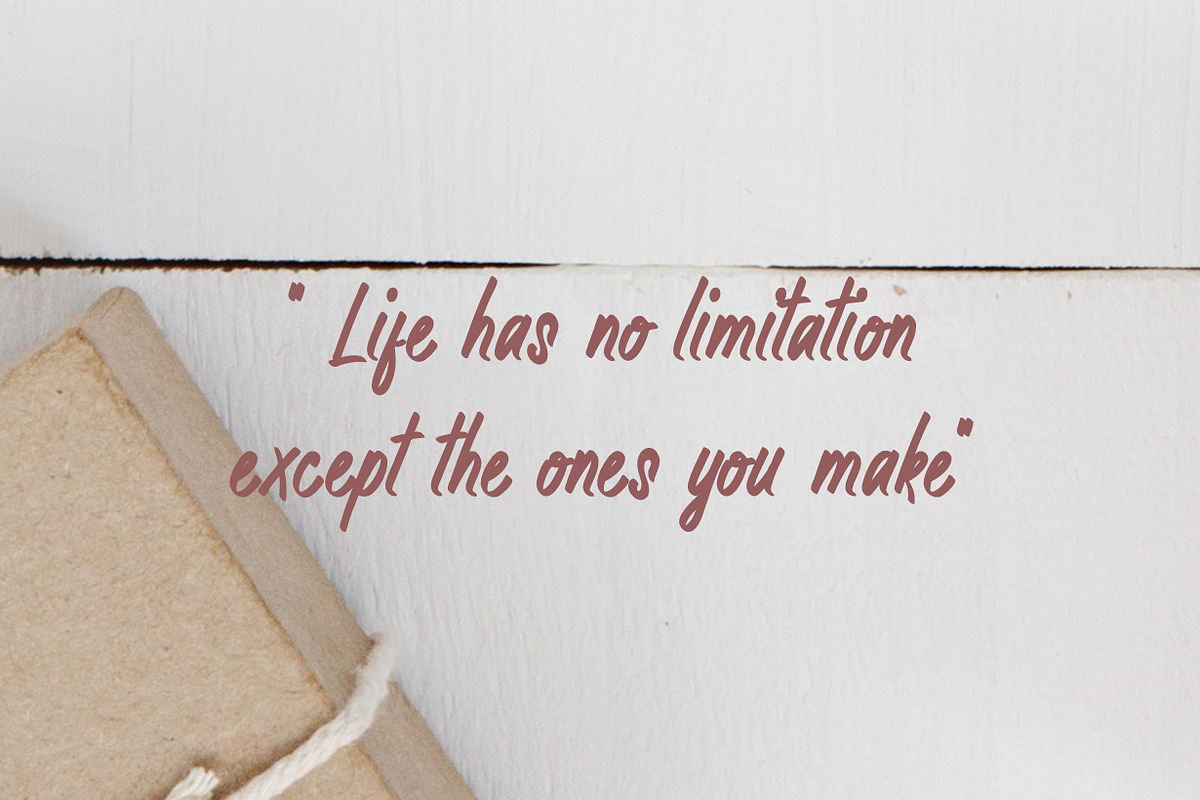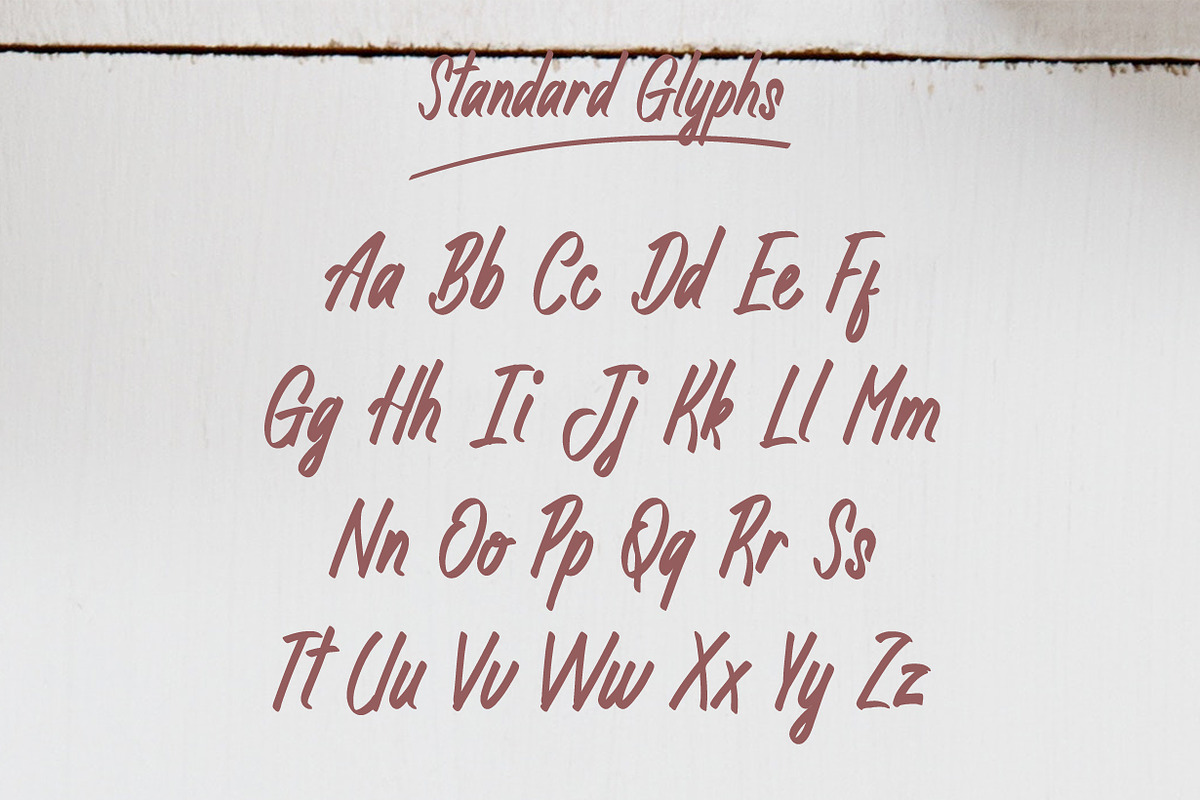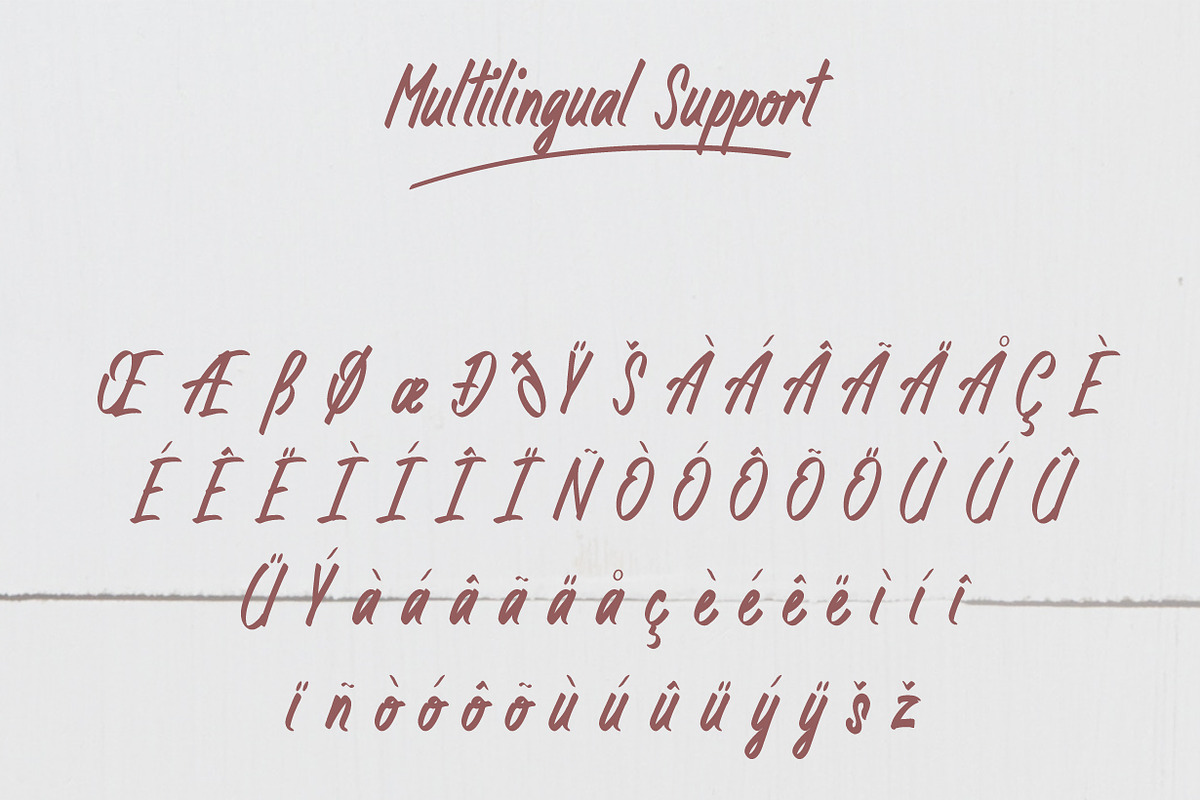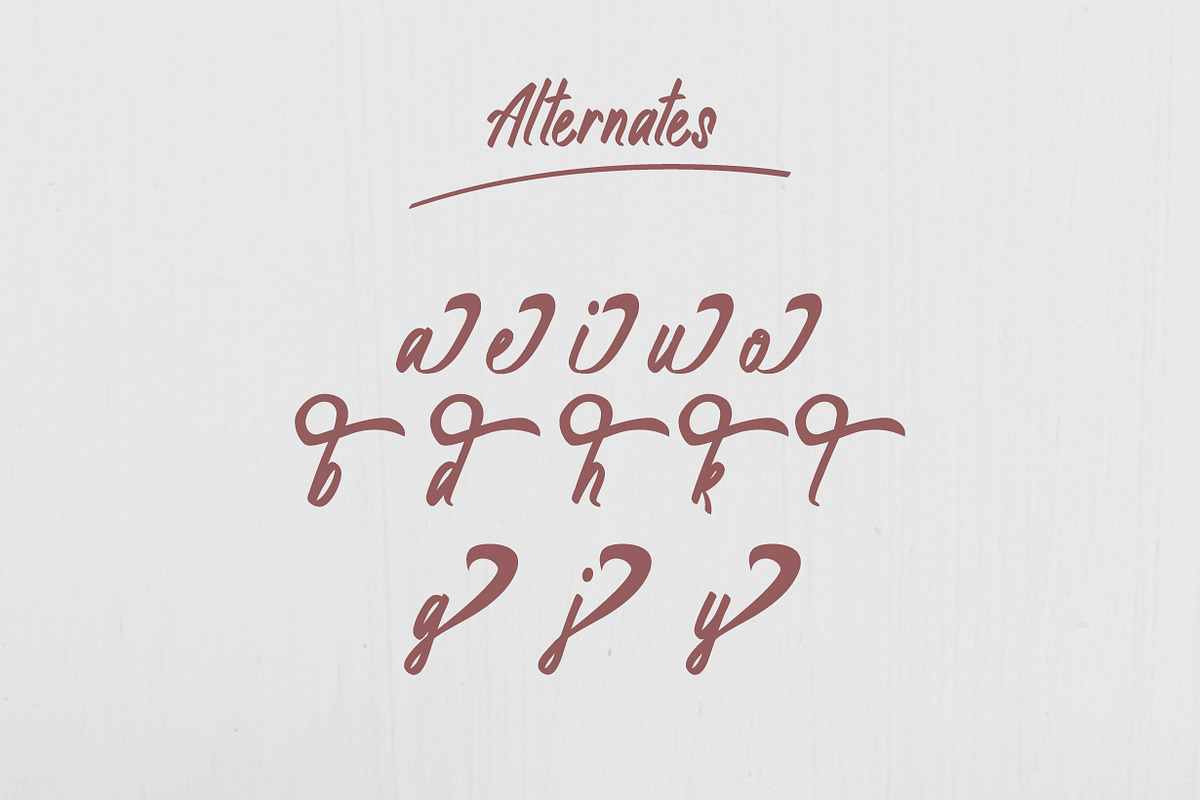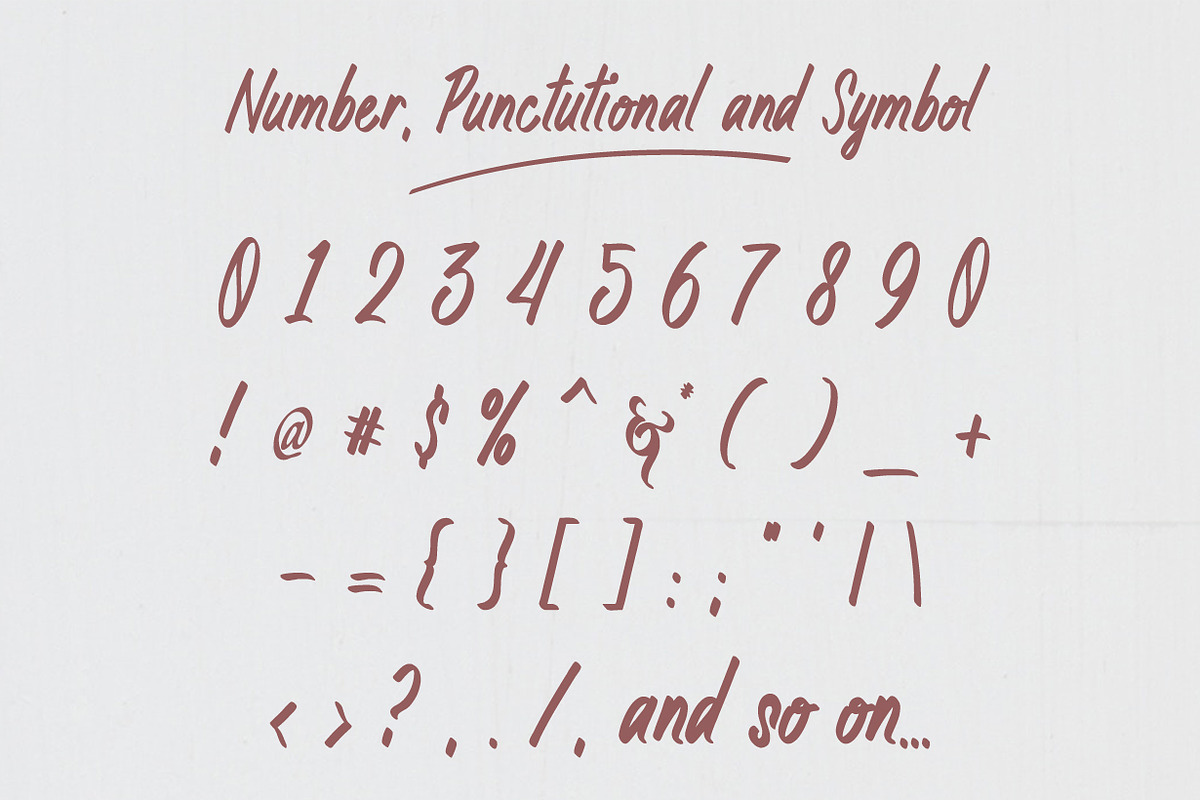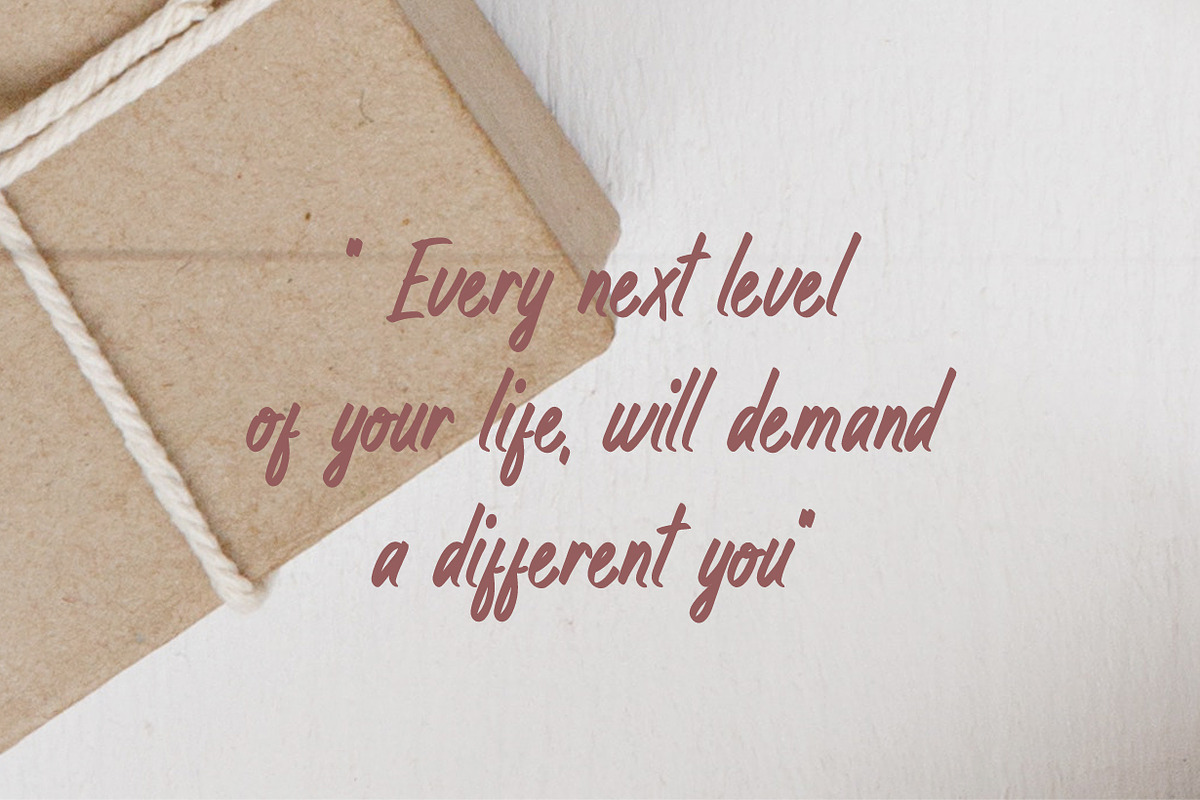
Armenicha vintages font Script
This versatile script typeface includes many different alternates for each lowercase letter. It's extremely fun to use as each word can be transformed to your liking.
This Armenicha typeface works really well for Logos and Apparel Design. It's also great for creating Prints or Merchandise, as you can use the illustrative qualities of the shapes to create an art piece.